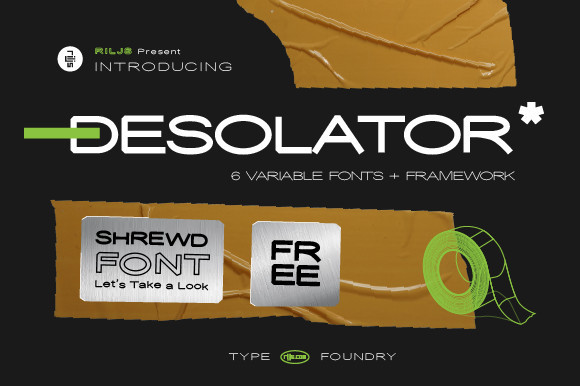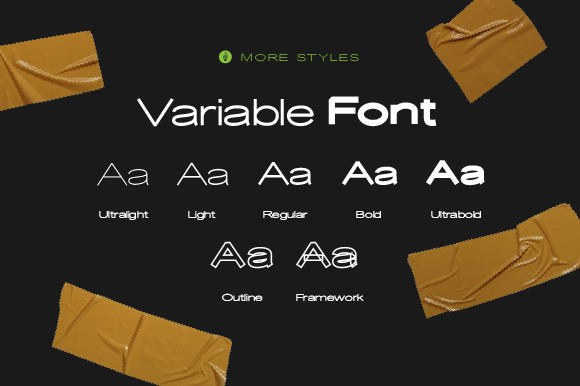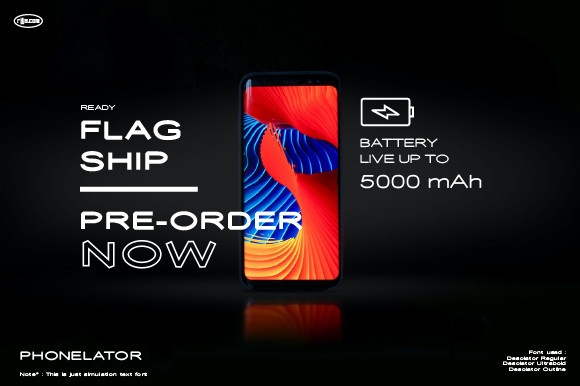
Desolator Font
Desolator is a cool sans serif font with a very neat arrangement of letters. Whether it’s for web, print, moving images or anything else, Desolator will look spectacular.